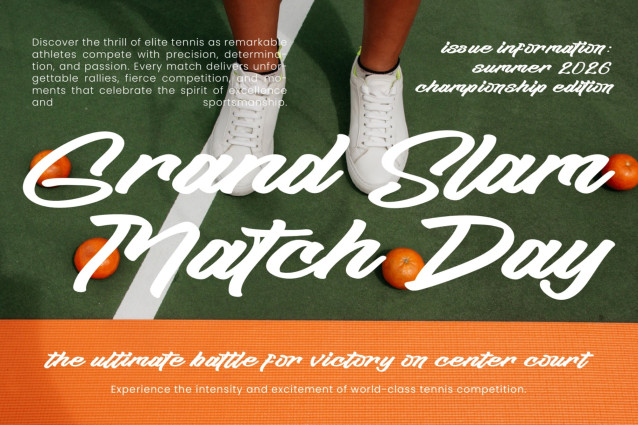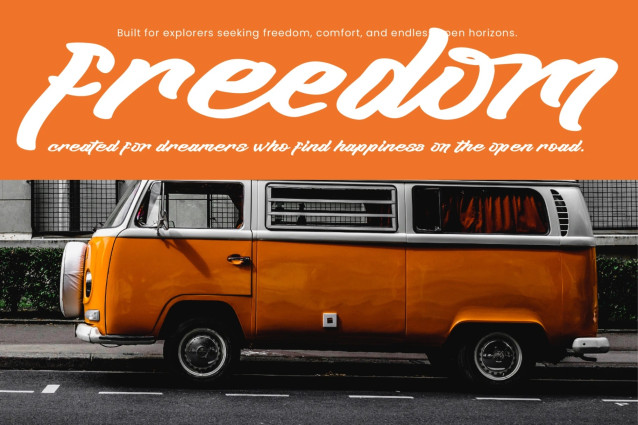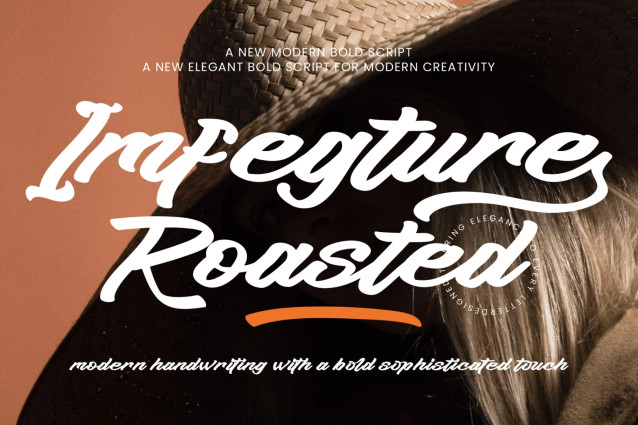
Imferture Roasted Font
Imferture Roasted Font is a modern bold script font that blends confident lettering with elegant handwritten charm. Crafted with smooth curves, strong strokes, and flowing connections, this typeface delivers a striking visual presence while maintaining a refined and sophisticated character.
Designed for creative professionals, Imferture Roasted captures the essence of modern handwriting with a bold personality, making it ideal for projects that require both impact and style. Its expressive letterforms and stylish swashes create eye-catching typography that stands out across digital and print applications.
Whether you’re designing logos, product packaging, branding materials, social media graphics, apparel designs, or editorial layouts, Imferture Roasted adds a warm, contemporary, and professional touch that elevates your visual identity.